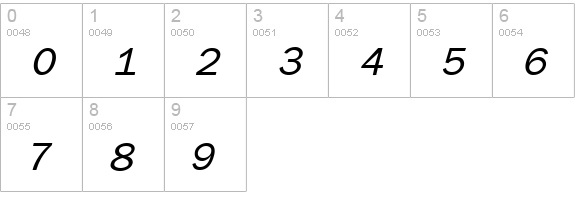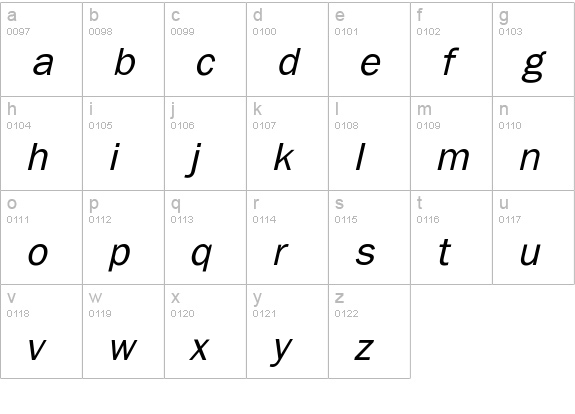
Frankfurt kursiv font is a modern and stylish typeface that exudes sophistication and elegance. With its sleek lines and unique italicized design, this font is perfect for adding a touch of flair to any project. Whether you're designing a logo, creating a poster, or crafting a stylish website, Frankfurt kursiv font is sure to make a statement. The best part? Frankfurt kursiv font is completely free to download at FontsMarket.com. This means you can add this stunning font to your collection without breaking the bank. Don't miss out on the opportunity to elevate your designs with the striking Frankfurt kursiv font - download it today and let your creativity soar!